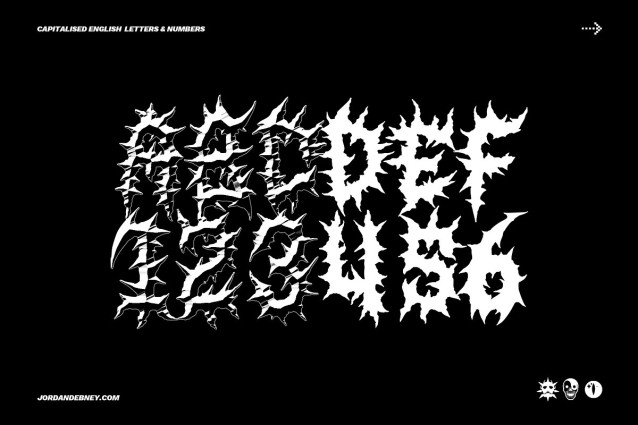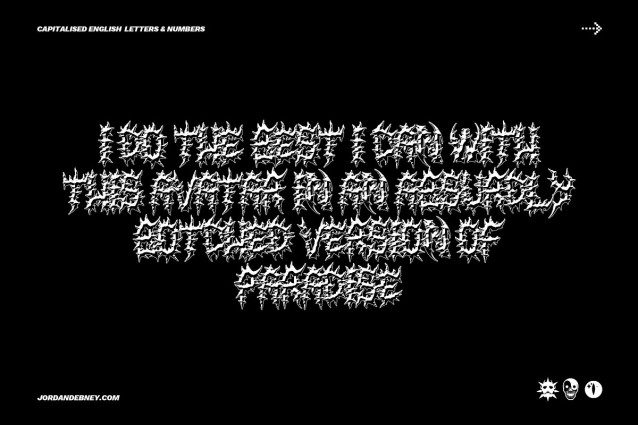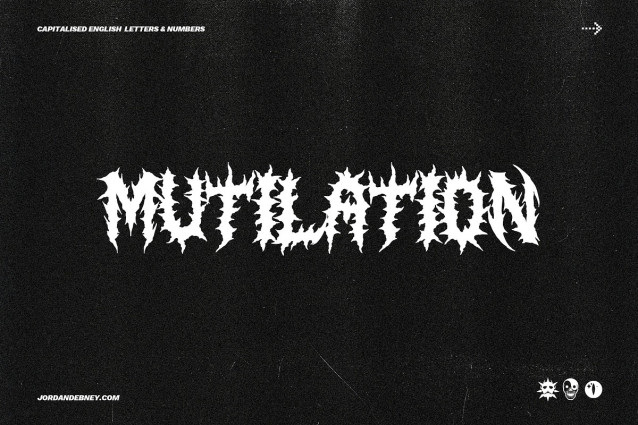
JD Mutilation Basic Font
JD Mutilation Basic Font, on the war path ‘mutilation’ is a vengeful headline typeface out for blood and bone. reflective of the metal genre in it’s current day, border-line readability and edges that’ll saw right through your teeth.